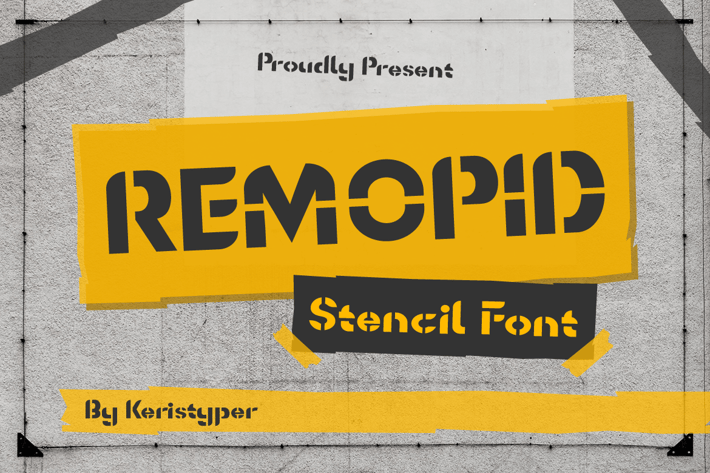
Remopid Font
Introducing Remopid typeface, stencil display font with a strong personality. This font is good for logo design, Social media, Movie Titles, Books Titles, short text even long text letters, and good for your secondary text font with sans or serif.
Standard Uppercase & Lowercase
Multilingual : ä ö ü Ä Ö Ü ß ¿ ¡
Alternate & Ligature